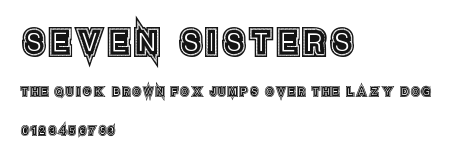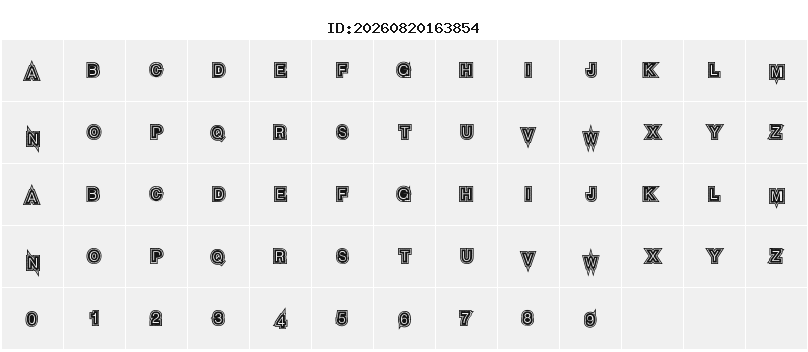
• Font Name: Seven Sisters
• Font ID: Seven Sisters:Version 1.00
• Full Font Name: Seven Sisters
• Version: Version 1.00 February 23, 2015, initial release
• PostScript Name: SevenSisters
Seven Sisters.ttf is a modern, elegant sans-serif font designed for ultimate readability and visual harmony. Perfect for branding, headlines, web design, and print materials.